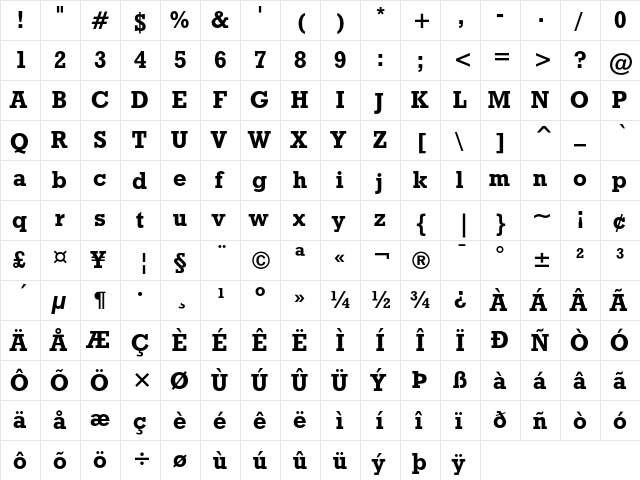
Geometric Slabserif 712 Bold Font Preview
Design Context for Geometric Slabserif 712 Typeface
Geometric Slabserif 712 combines the readability of serif typography with the visual weight of a slab construction, resulting in a typeface that feels both authoritative and approachable. The heavy weight commands attention and anchors typographic hierarchies.
Suited to magazines, political campaign materials, bold packaging, and any setting where authority matters.
Pro Tip: Use Geometric Slabserif 712 for headlines and subheadings where its slab serifs can make an impression. It also holds up well in mid-size body copy thanks to its sturdy construction.